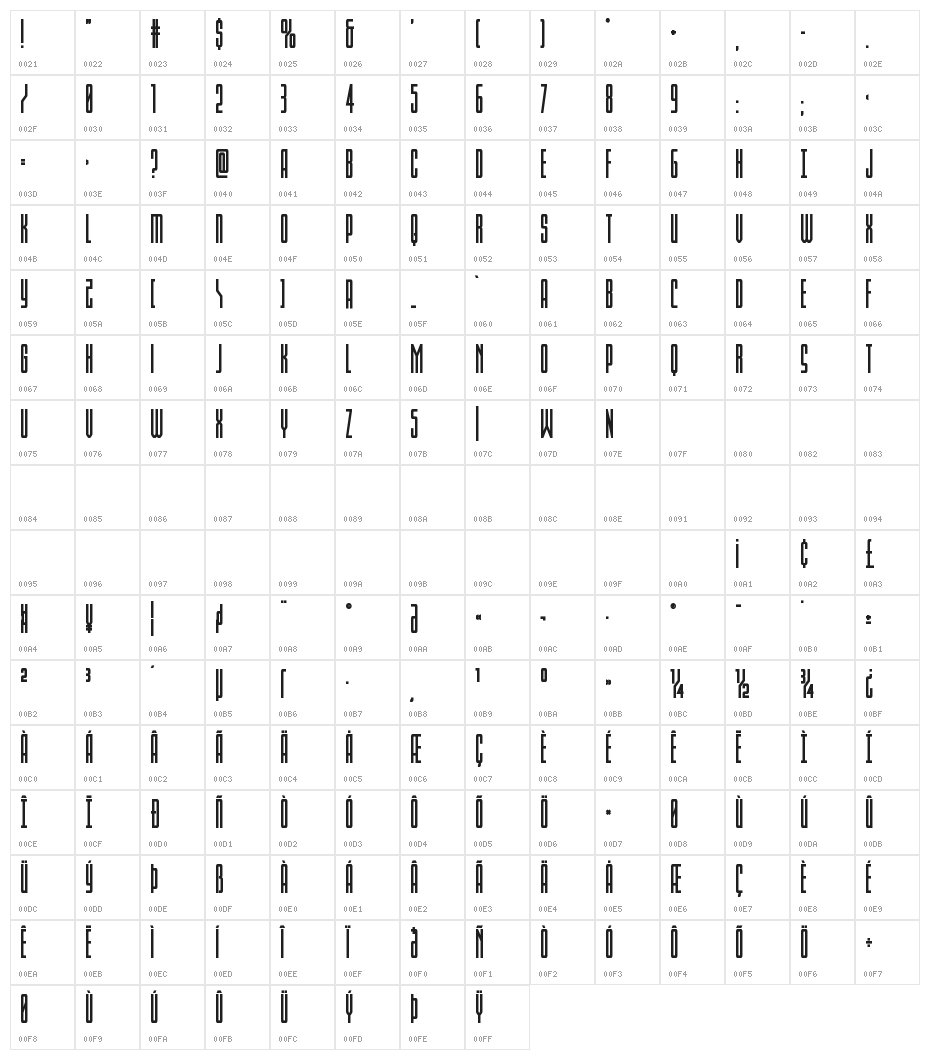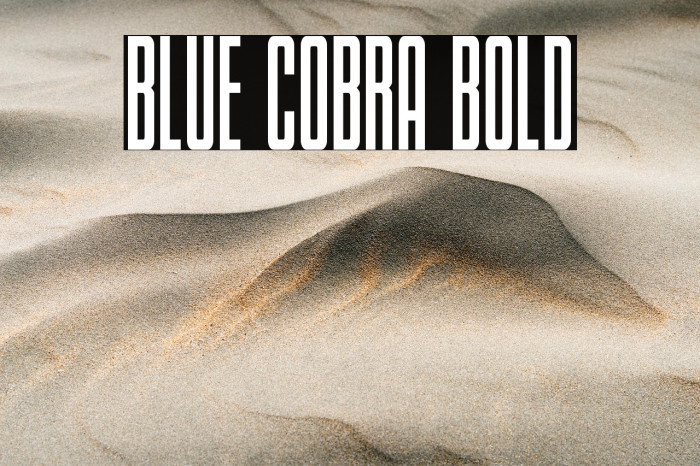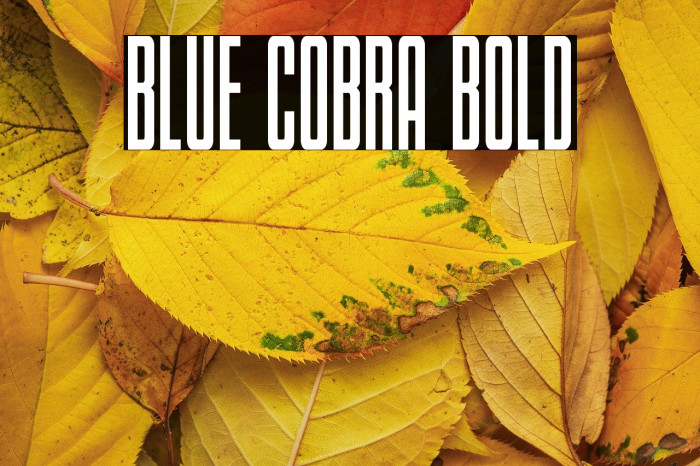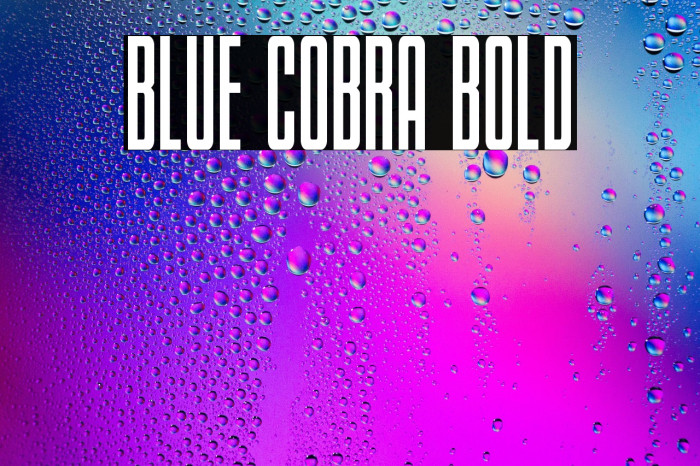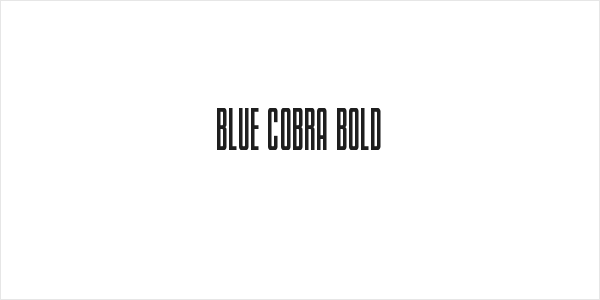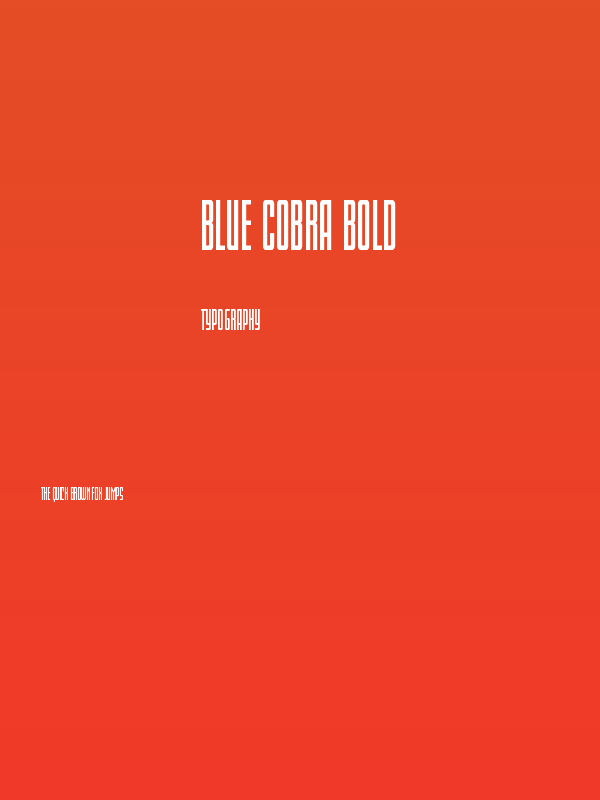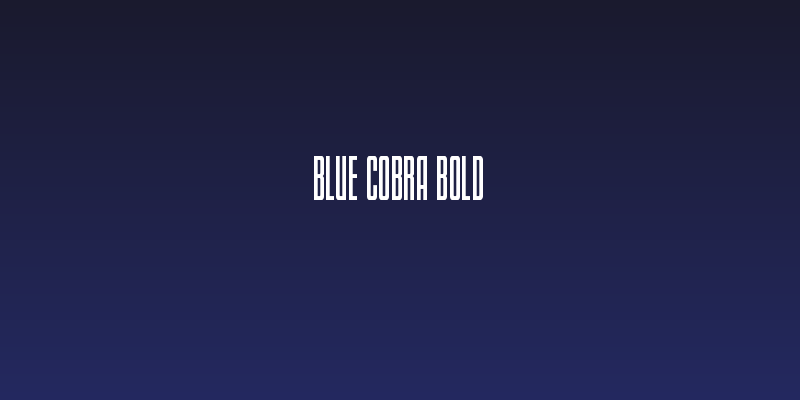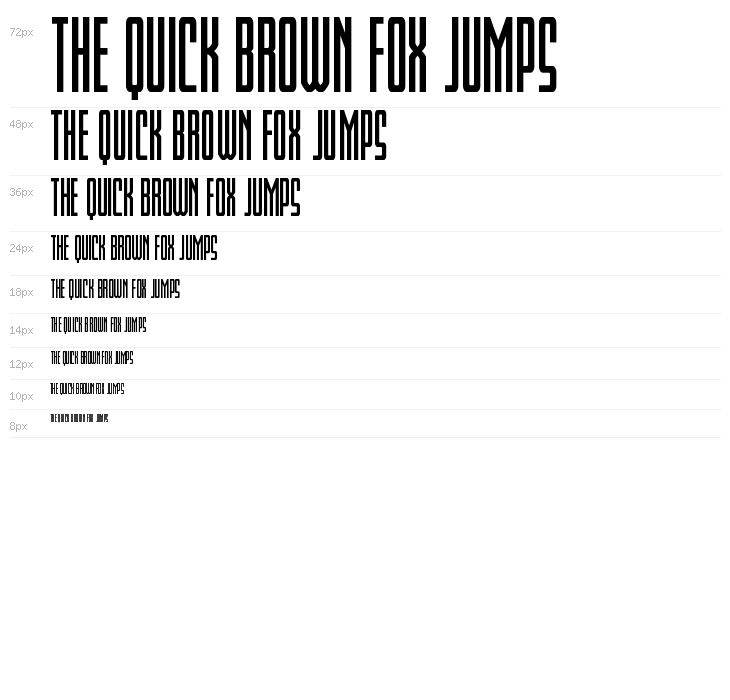
Blue Cobra Bold Font
Blue Cobra Bold Description
This font features a bold and condensed style with tall, narrow characters that convey a strong and impactful presence. The uppercase letters are uniform in height, creating a cohesive and structured appearance. The vertical lines are prominent, while the horizontal strokes are minimal, enhancing the elongated look. The numbers and special characters maintain the same boldness and condensed form, ensuring consistency across all elements. This font's design is modern and assertive, making it suitable for attention-grabbing headlines and statements.
Proposed ProjectsIdeal for posters, logos, branding materials, and any project requiring a bold statement.